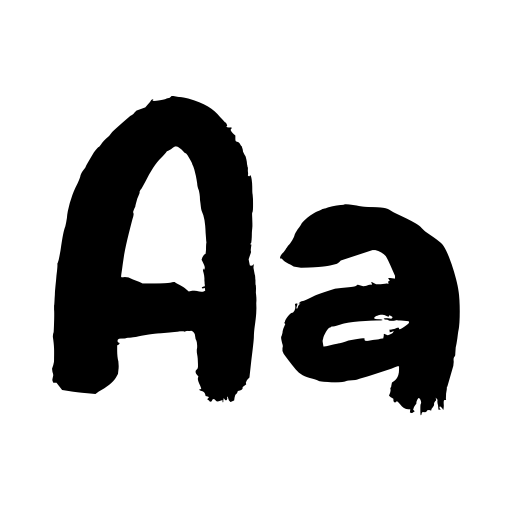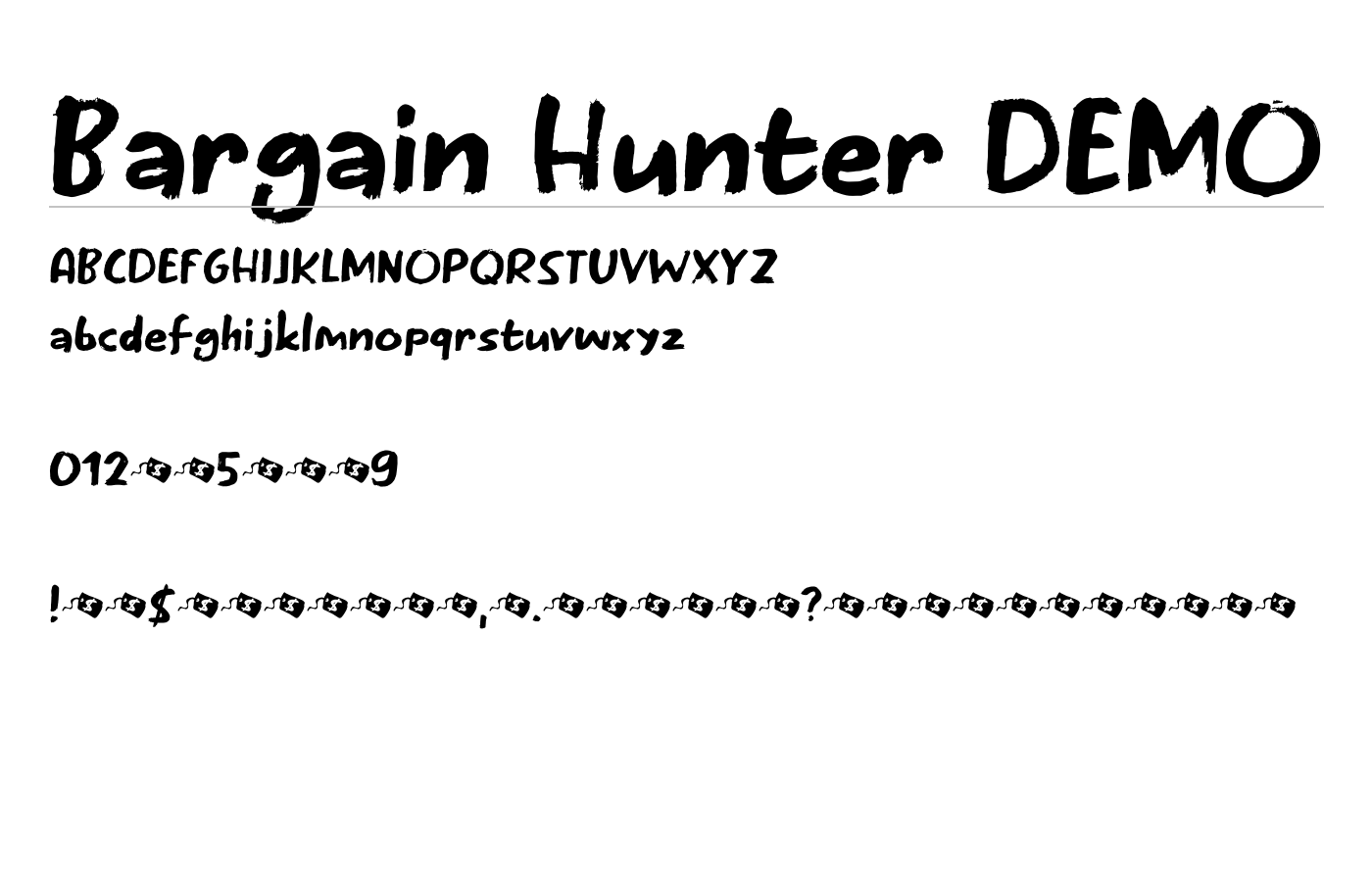
Bargain Hunter DEMO is a bold, casual handwritten sans serif font with a playful, brush-stroke texture that adds a dynamic and approachable feel. Its uneven letterforms and energetic style make it ideal for informal, creative designs such as posters, logos, and packaging that aim to grab attention and convey a friendly, spontaneous vibe. This font works best in headlines and display settings where its unique personality can stand out.
Bargain Hunter DEMO Font
About Bargain Hunter DEMO Font
| Font family | Bargain Hunter DEMO Font |